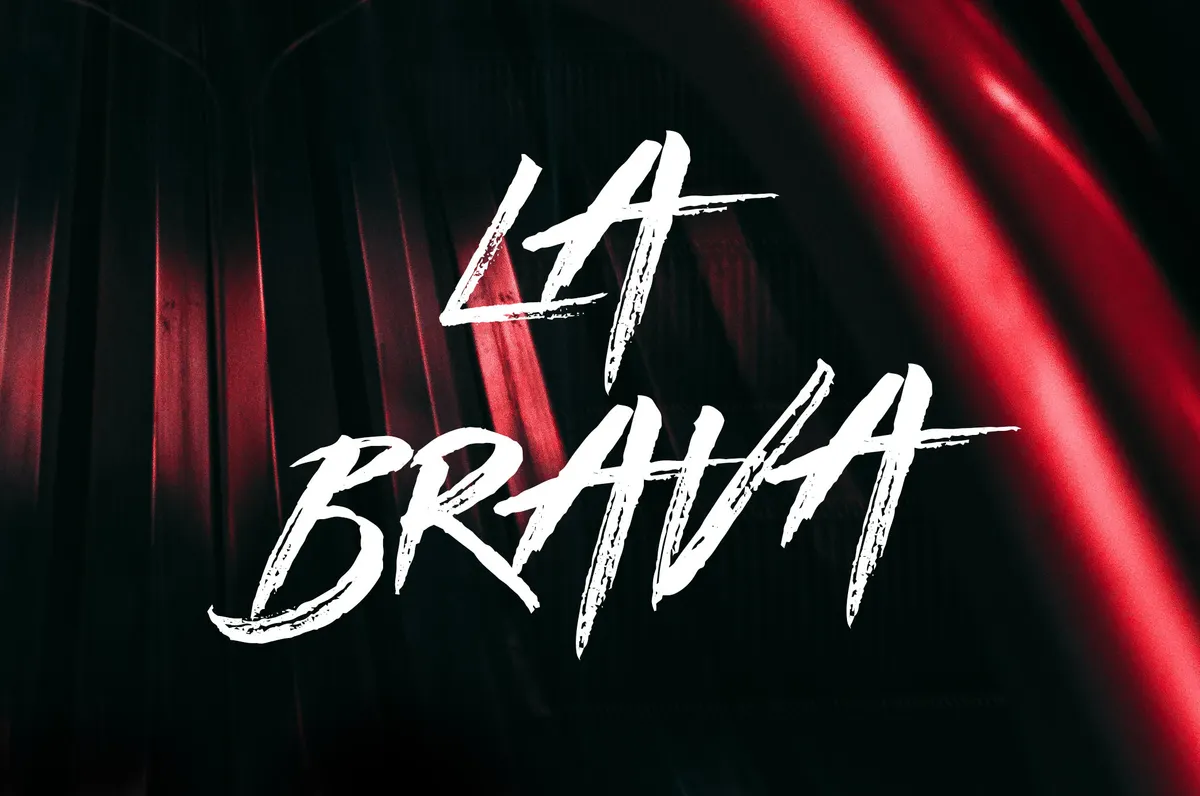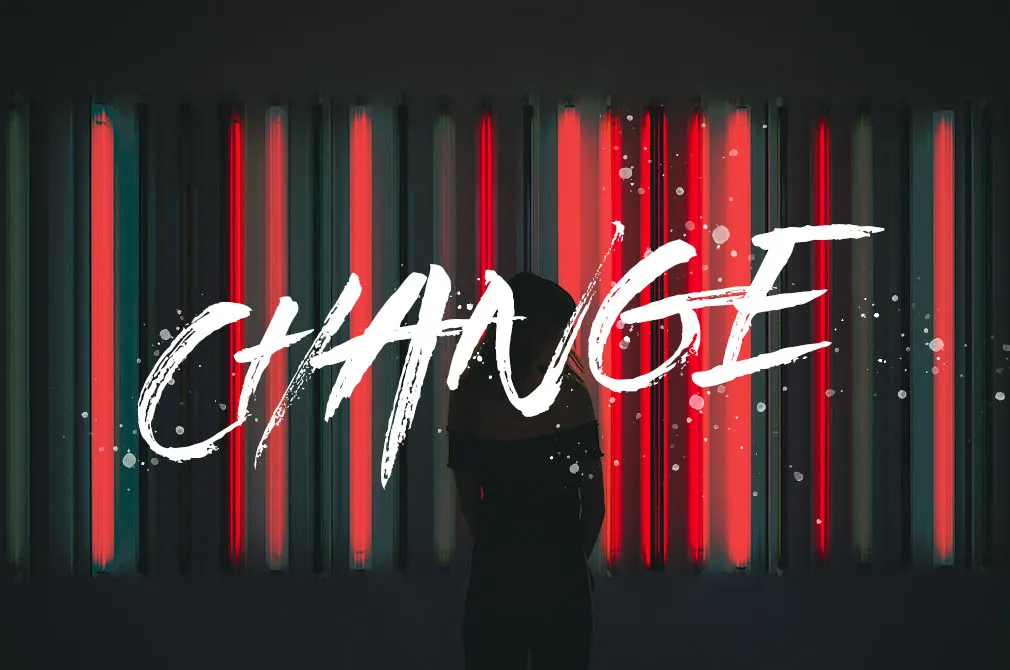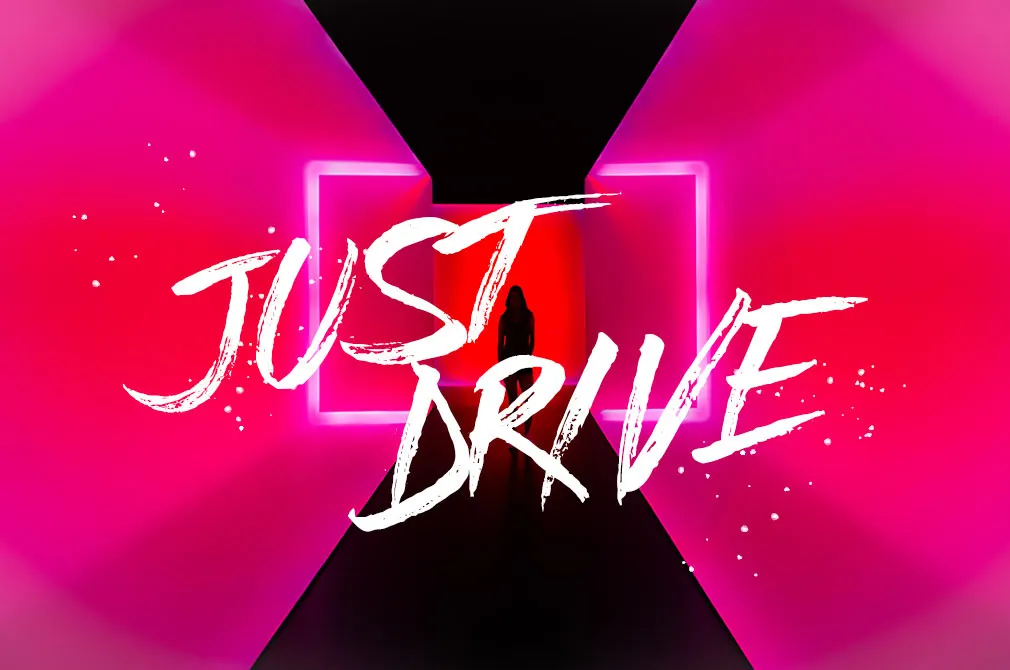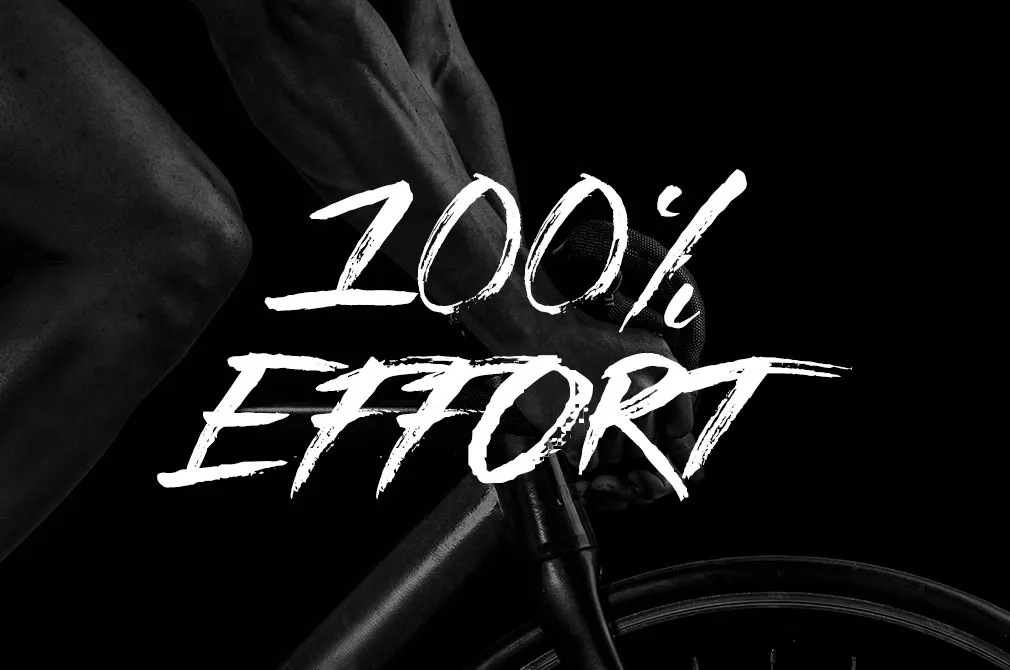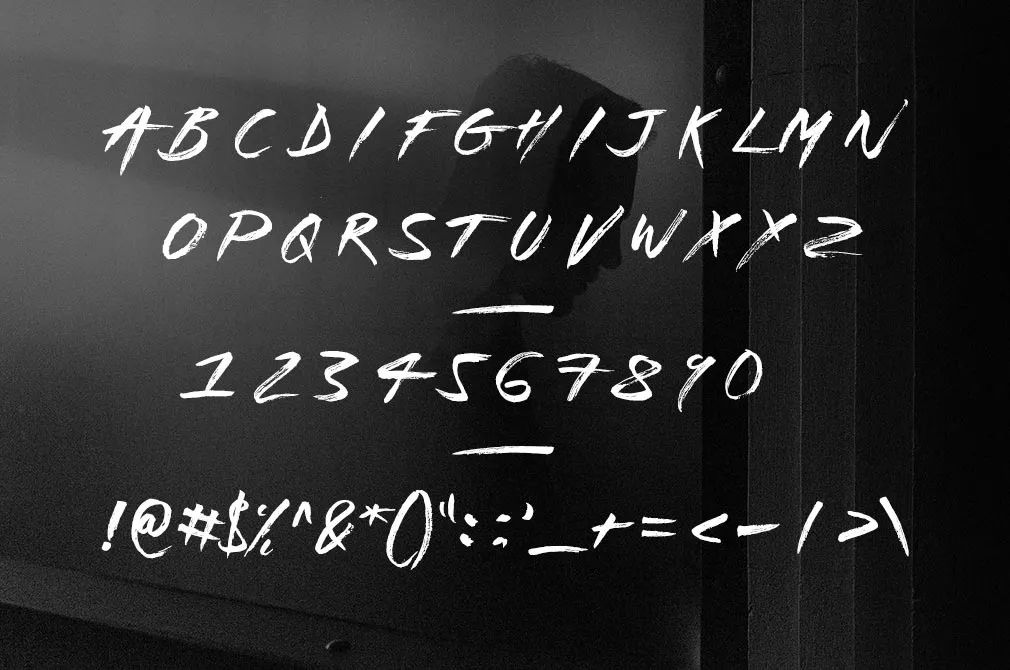
La Brava Typeface
Battle until your opponents done! And impress your battle cry in courageous, revolutionary La Brava display font, bringing charisma and hand-sketched nature which are to be envied.
With oodles of characters and charisma, the hand-sketched character of this font lends you vibrancy and contrast. Complement posters and clothing, match with textures, illustrations, patterns to achieve rocking results that no one will dare to duck away - lowercase letters, punctuation, and numerals are for publicity. If youve got it, how can you be afraid of declaring what you have in your chest?